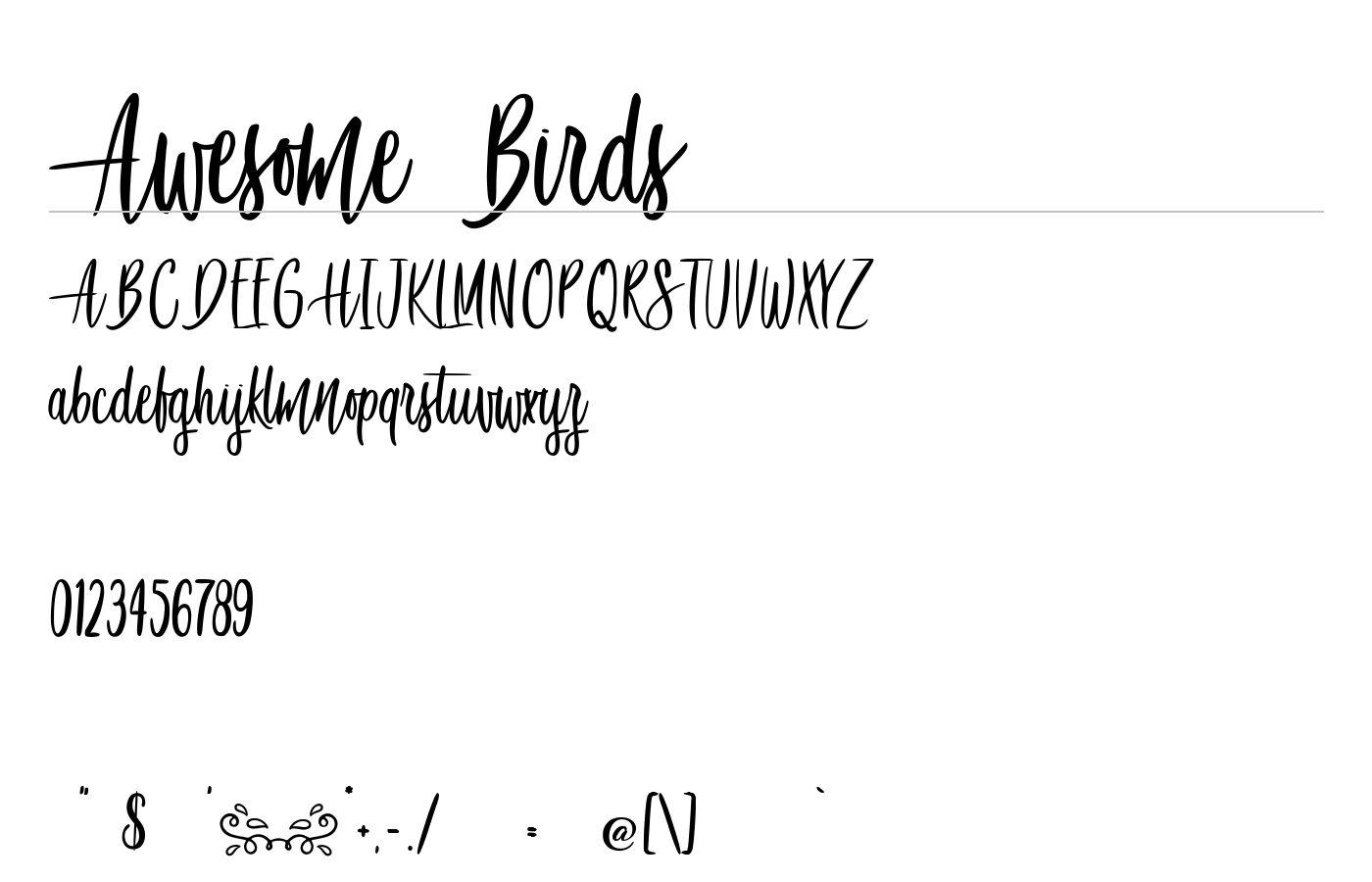
Awesome Birds is a playful and elegant script font with a handwritten feel, featuring tall, slender letterforms and smooth, flowing strokes that create a lively yet refined appearance. Its light weight and narrow width make it ideal for creative projects like logos, invitations, and branding where a modern, stylish touch is desired. This font shines in designs that seek a personal, artistic vibe while maintaining clarity and charm.
Awesome Birds Font
About Awesome Birds Font
| Designer | Typhoon Type - Suthi Srisopha |